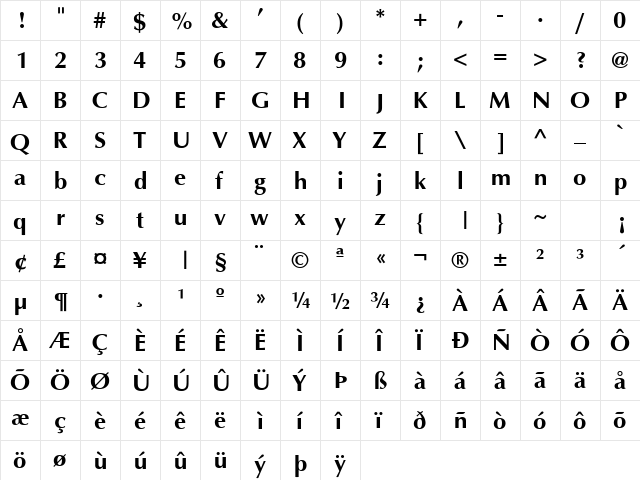
ft5b Bold
Design Context for ft5b Typeface
ft5b takes a measured approach to typography — its balanced proportions and neutral character make it a reliable workhorse for both digital and print work. Its bold stroke weight gives it real presence on the page.
Dating back to 1970, this typeface is available in TrueType (TTF) format.